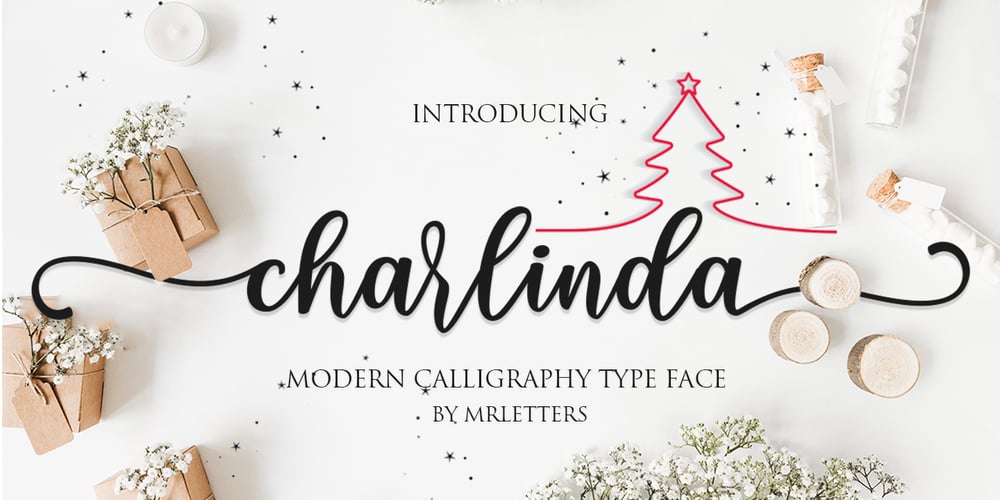
Charlinda Font Family was designed by Muhammad Rizal and published by MrLetters. Charlinda contains 1 styles and family package options. Charlinda Script is perfect for branding, wedding invitations, magazines, mugs, business cards, quotes, posters, and many more to make your big project look very beautiful. Charlinda Script is equipped with OpenType features and has many glyphs. And of course having a lot of glyphs will be able to choose letters to your liking, lots of variations and choices for each letter, so you can customize your design choices, also support for other languages. You need a program that supports OpenType features such as Adobe Photoshop CS / Adobe Photoshop CC, Adobe Illustrator CS / Adobe Illustrator CC, Adobe Indesign and Corel Draw or one of the many more programs that support OpenType. If you don’t have a program that supports OpenType, you can access all the alternate glyphs using Font Book (Mac) or Character Map (Windows) if you have any question, don’t hesitate to contact me by email hello.mrletters@gmail.com Thank you for purchasing and happy designing!